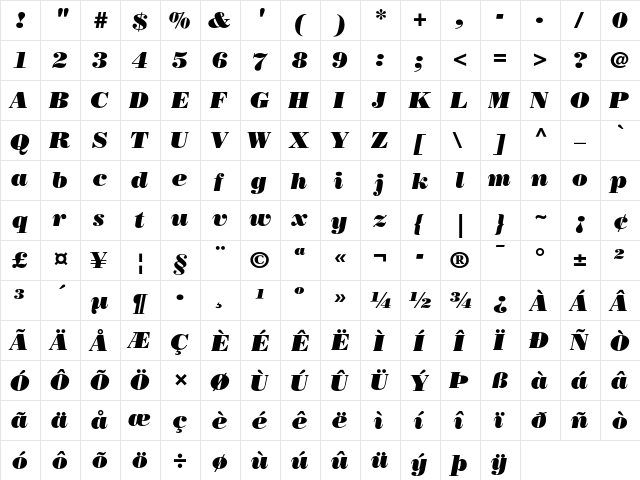
Bodoni Poster Italic
Bodoni offers clean, dependable letterforms without strong stylistic allegiance, making it a practical choice for designers who need flexibility. Its italic angle brings a sense of urgency and motion to the letterforms.
Pro Tip: Use Bodoni for emphasis, pull quotes, and subheadings where its slanted energy can add rhythm to the layout.